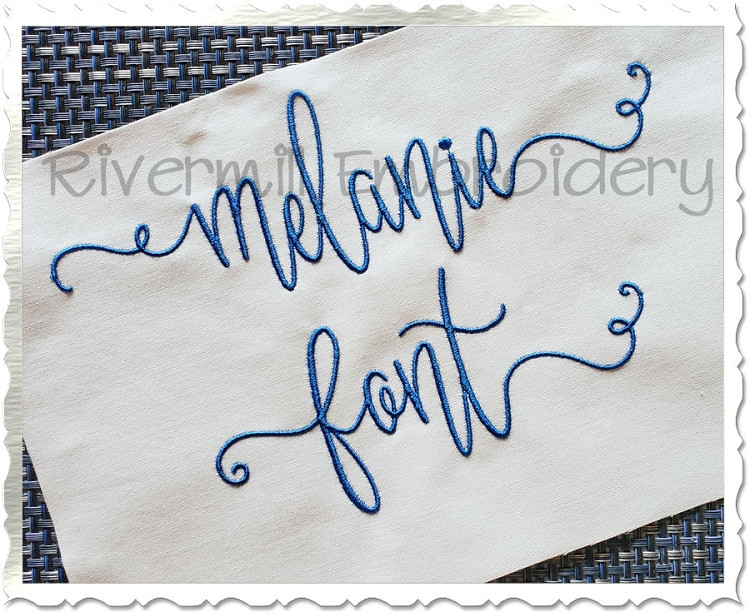
Melanie Machine Embroidery Font Alphabet
The set comes with upper and lower case letters, numbers 0-9, and alternate lower case letters with swirls (a left set and a right side set).